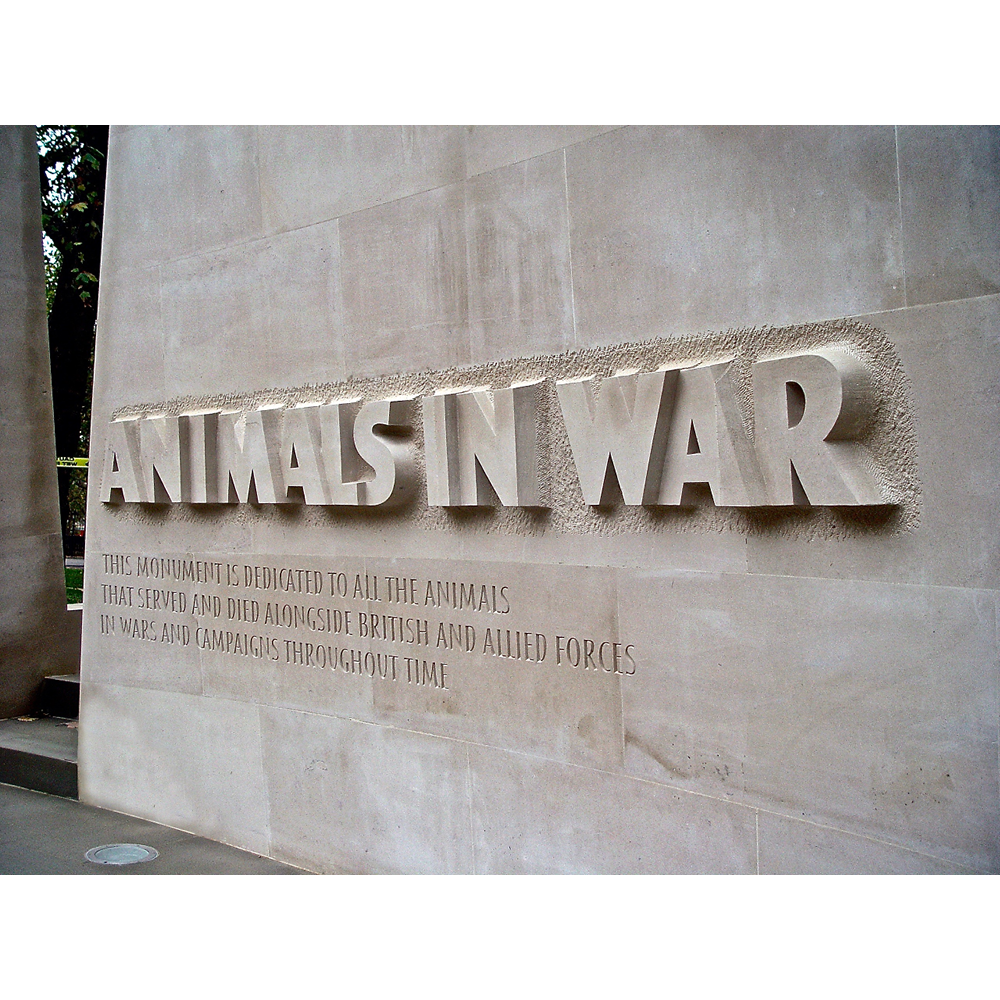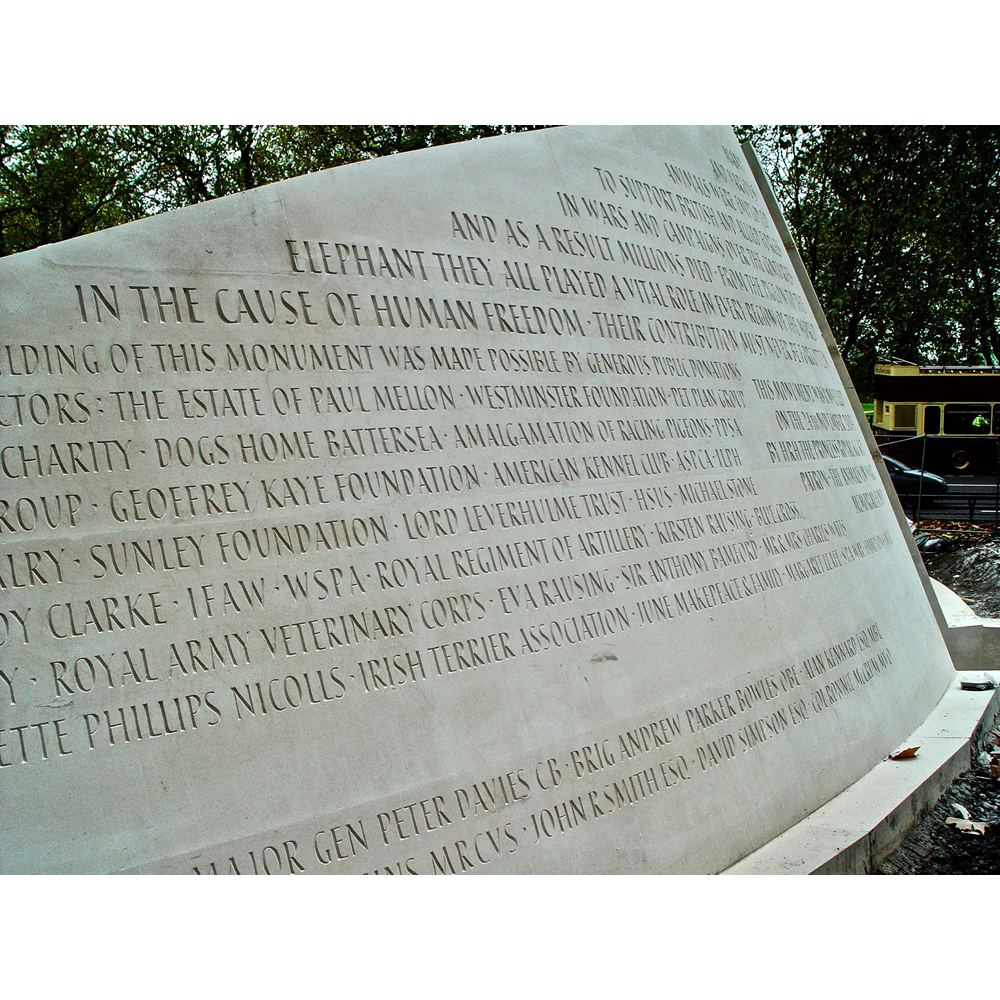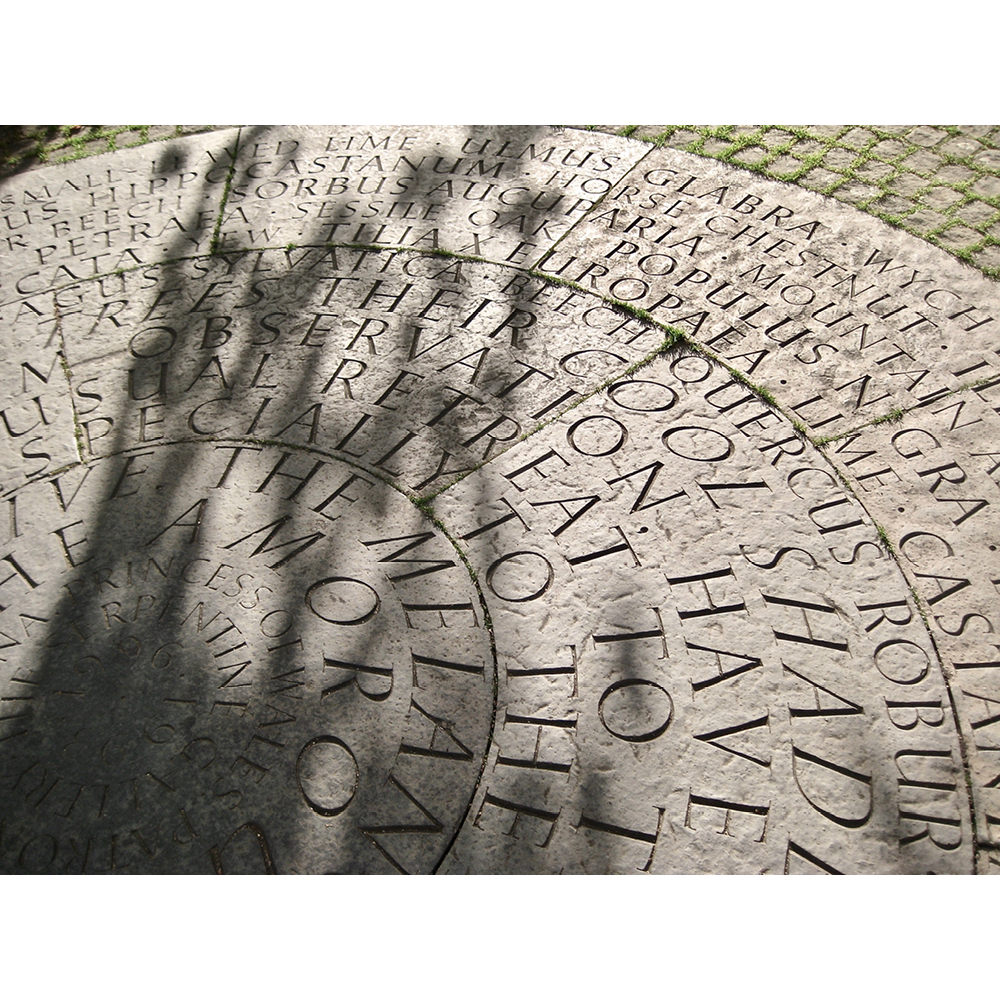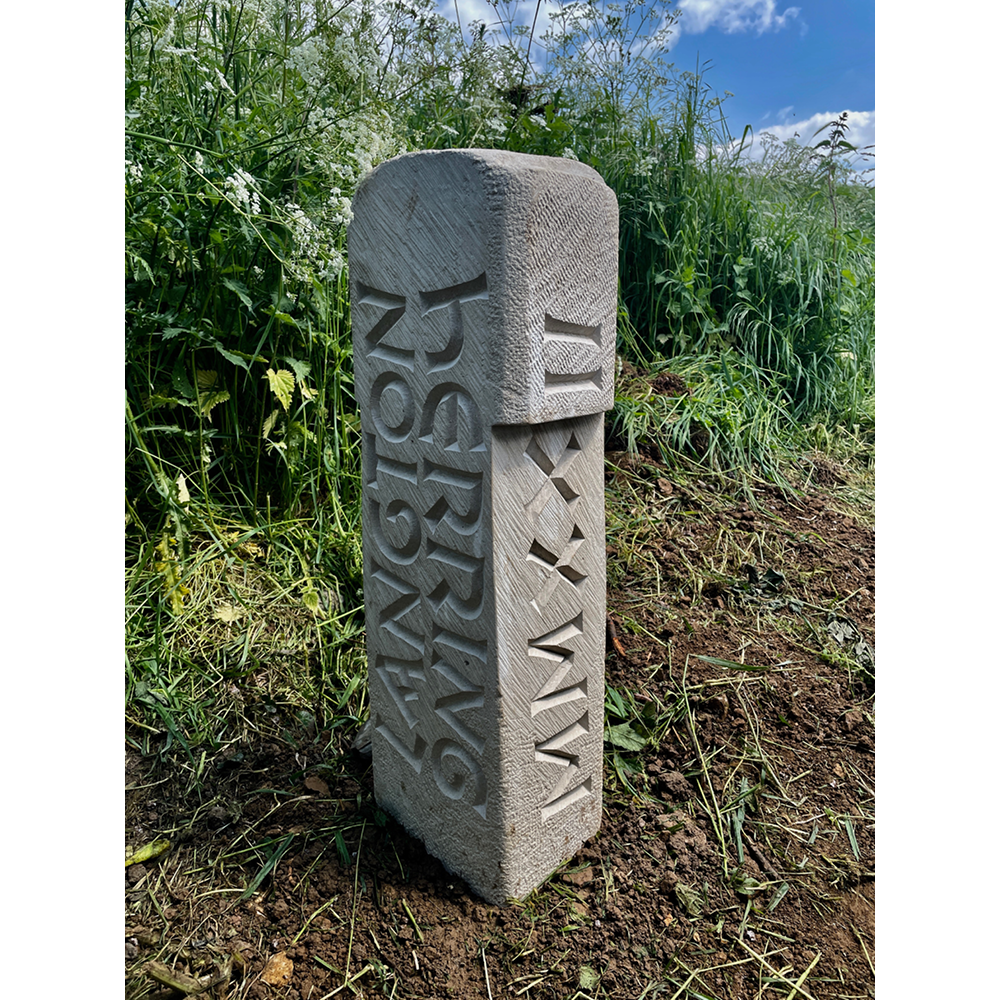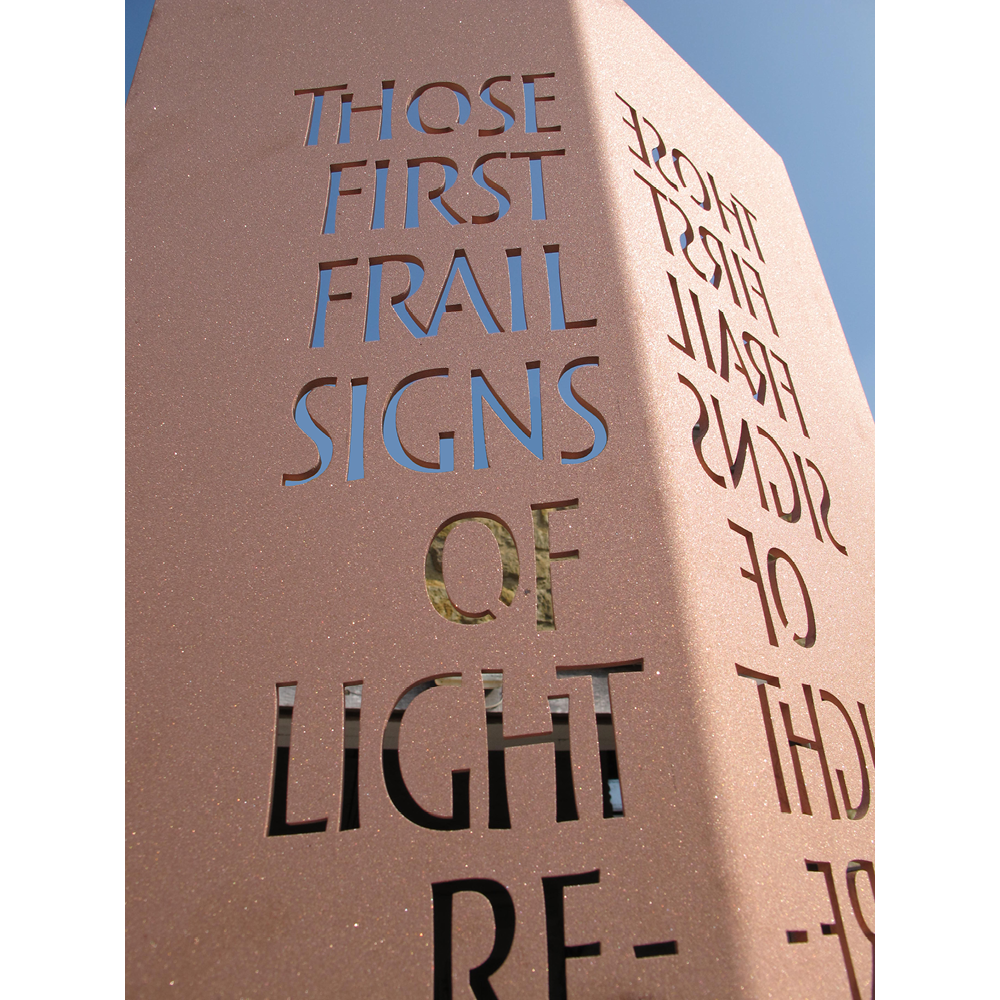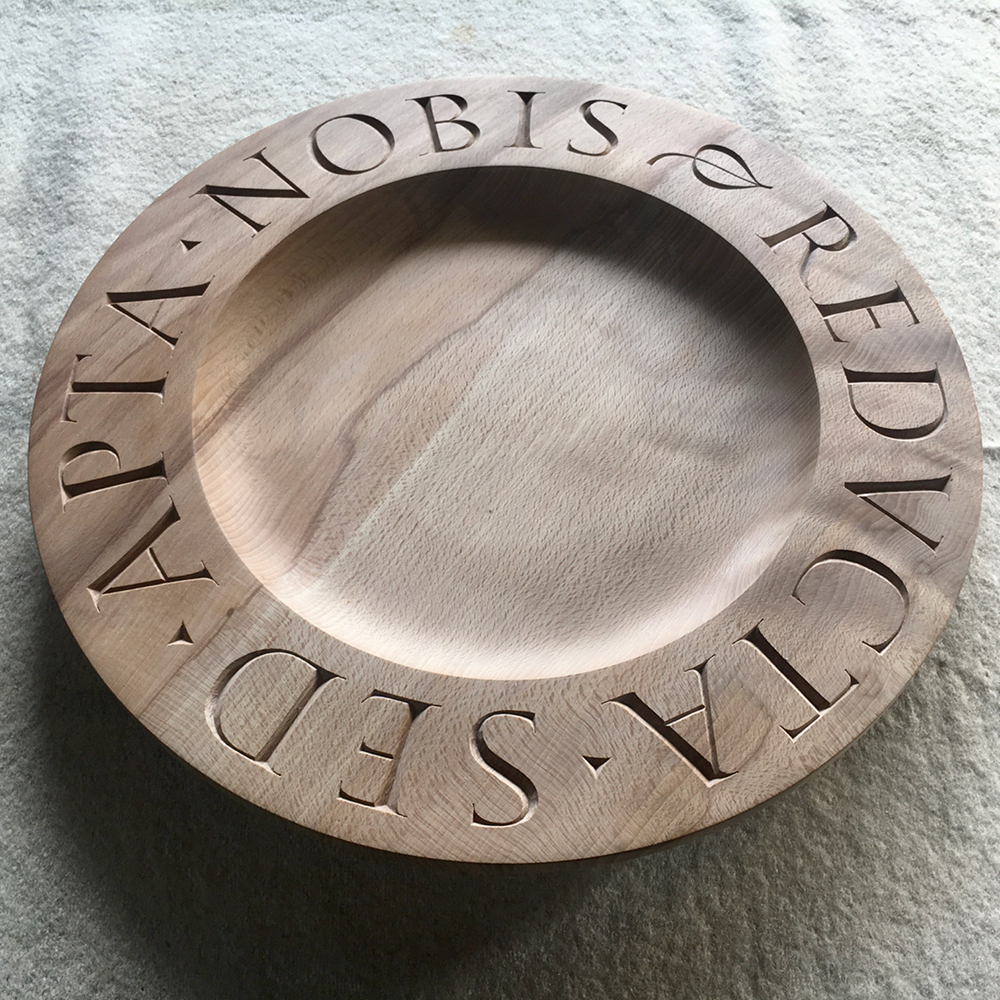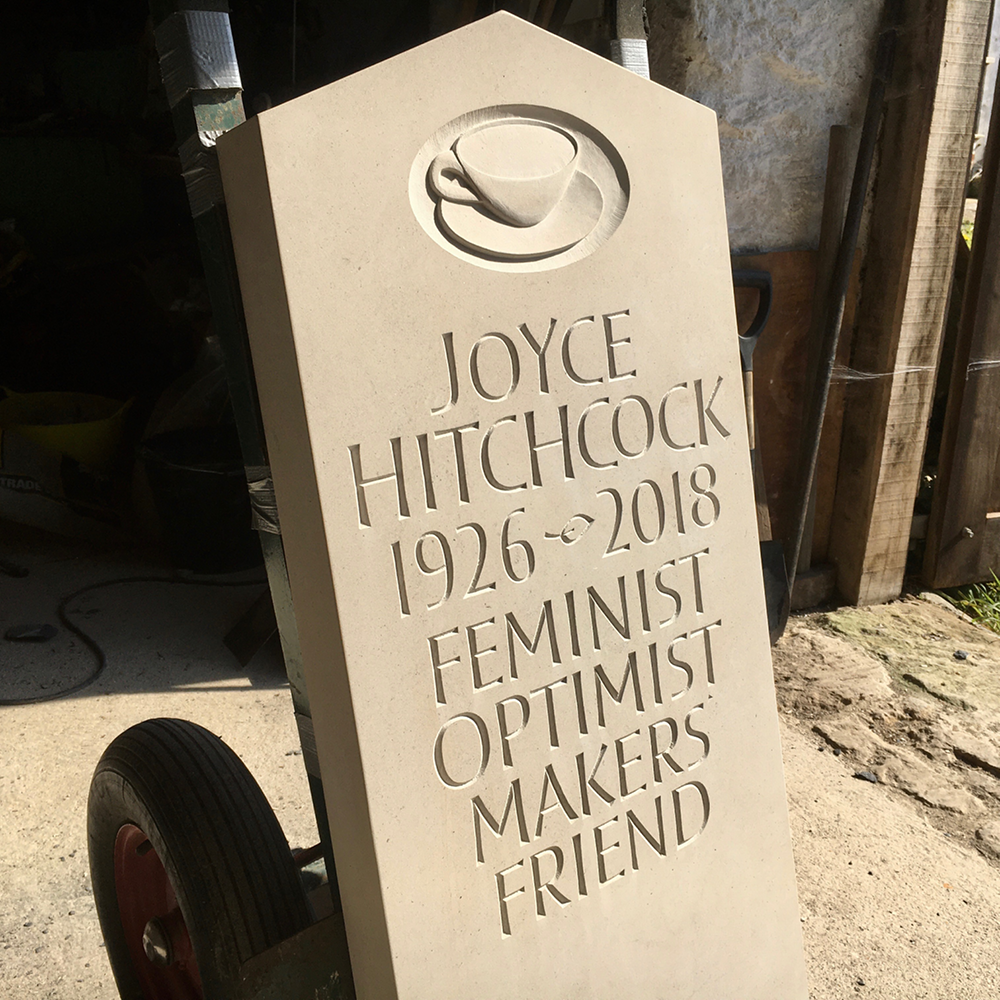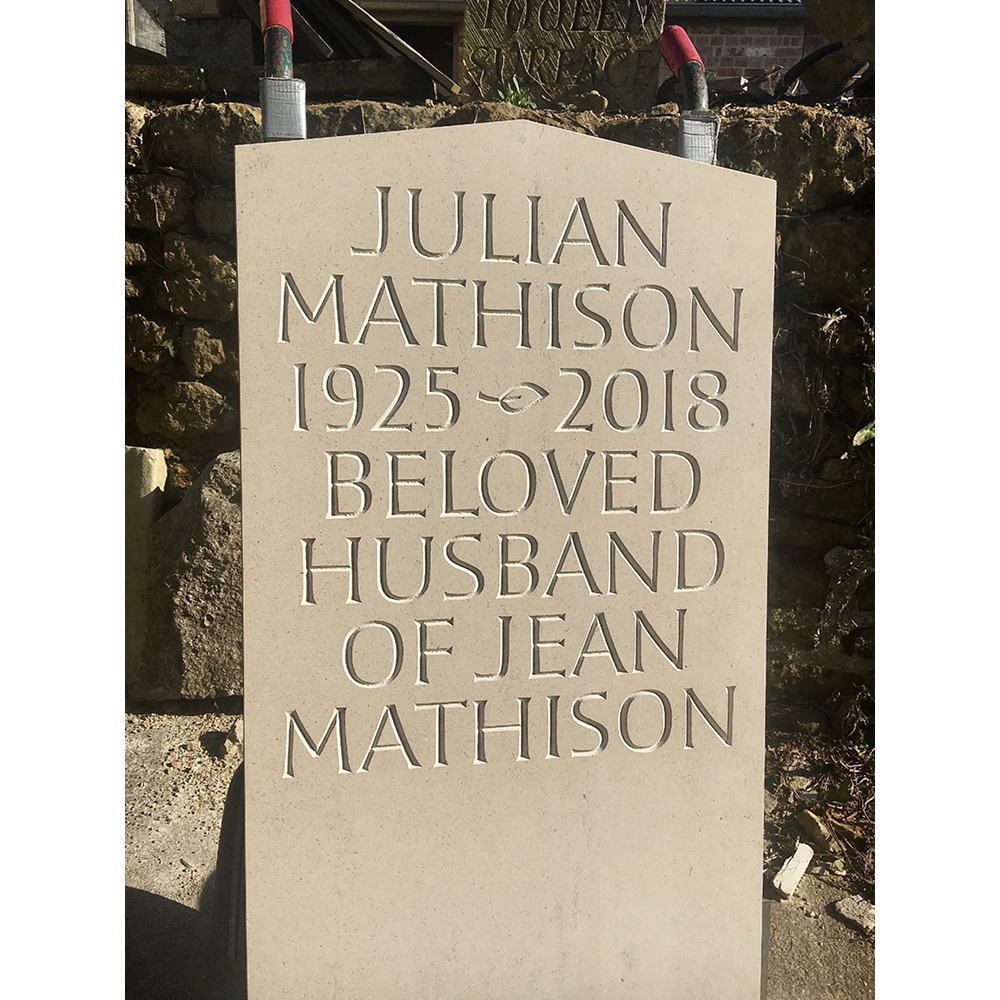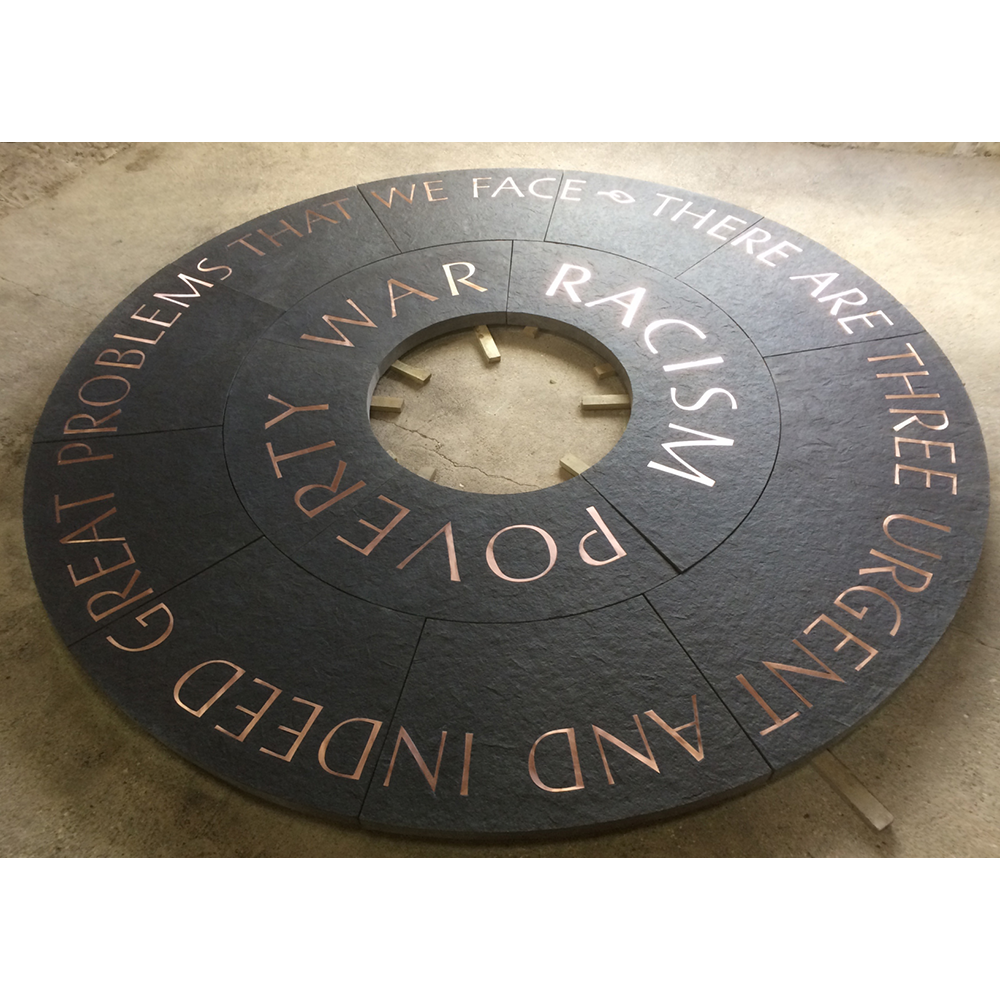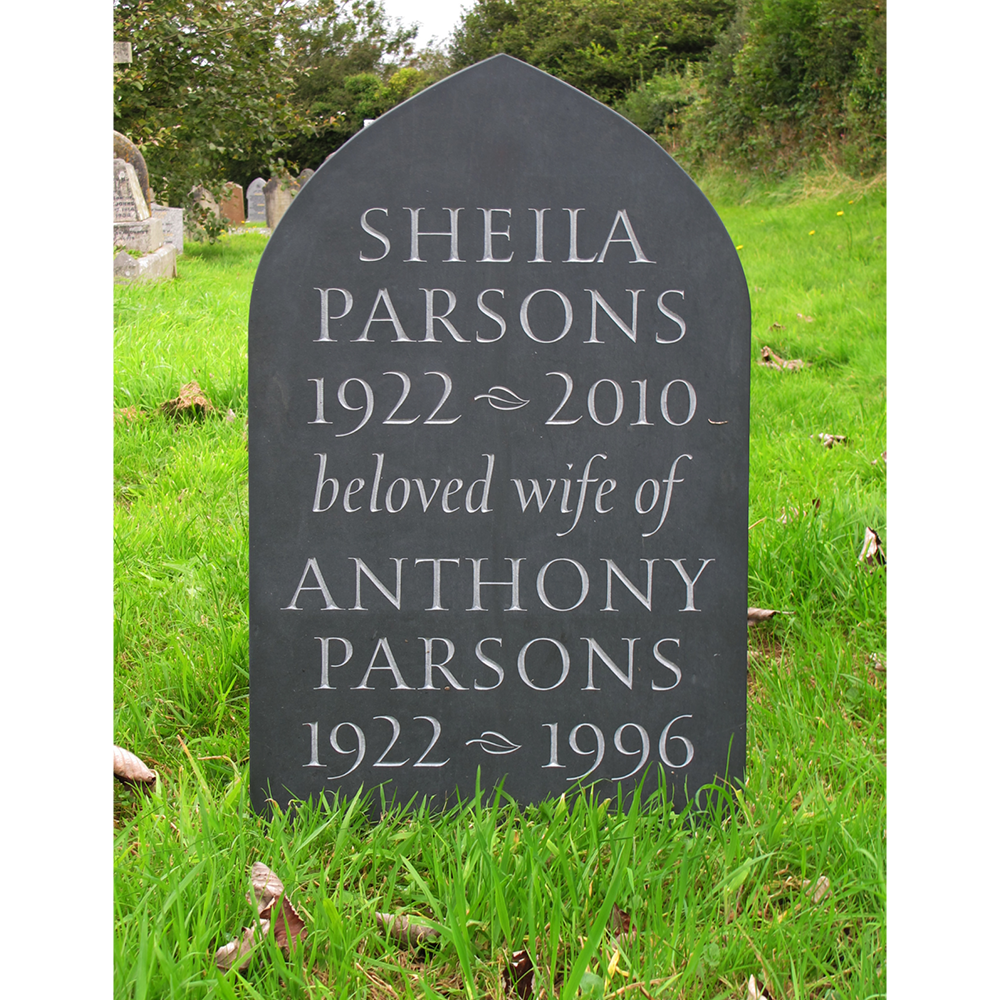
I have made many memorials and worked on Public Arts commissions in the UK and abroad. Notably: The Animals in War monument, Park Lane, London; The Museum of Modern Art in Edinburgh, St George’s, Bristol and Newcastle University.
I have permanent installations at the Tate and Serpentine galleries. In 1982 I founded the Lettering course at Weymouth College and taught there for sixteen years. I have also taught for the Lettering Arts Trust, Studio XII in Bruges and West Dean. I enjoyed a long and productive collaboration with Ian Hamilton Finlay from 1991 until his death in 2006. My practise is rooted in the craft tradition of design for materials and an extensive knowledge of historical letterforms, which I happily plunder to design contemporary letterforms. It is important to me that each piece is sympathetic to the material and tools used.